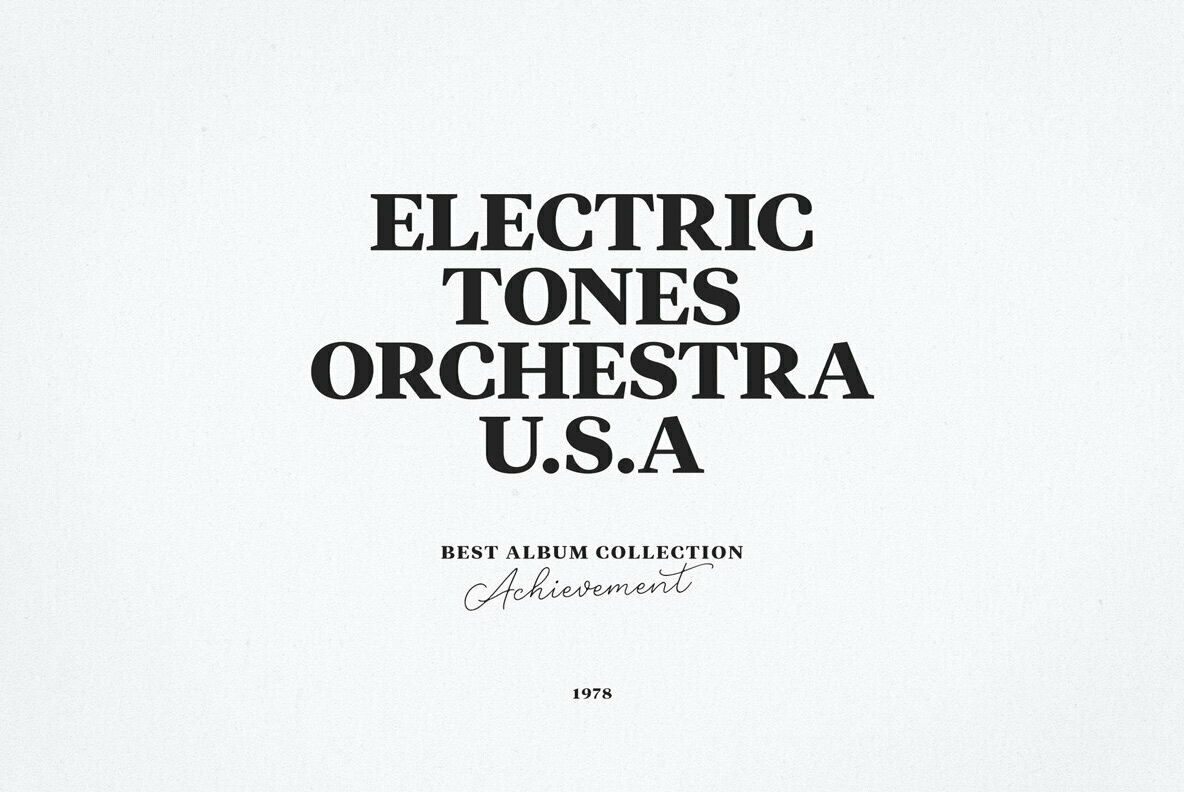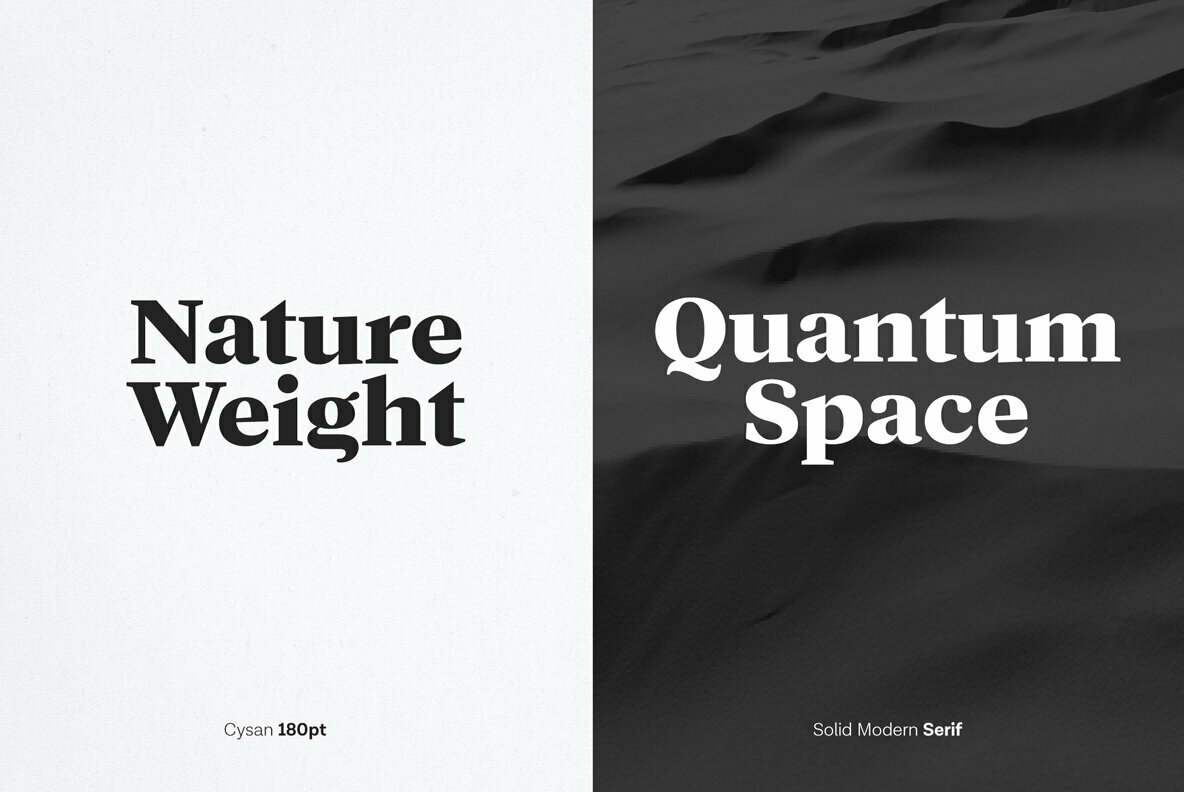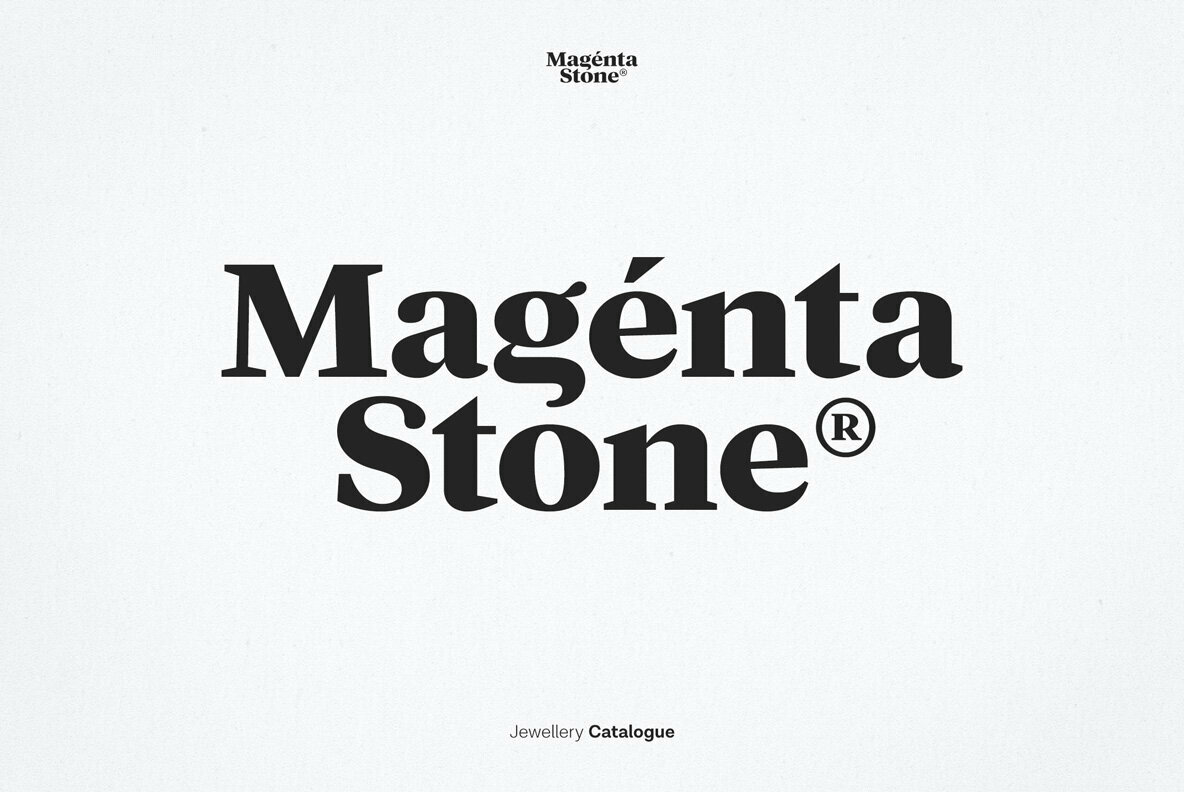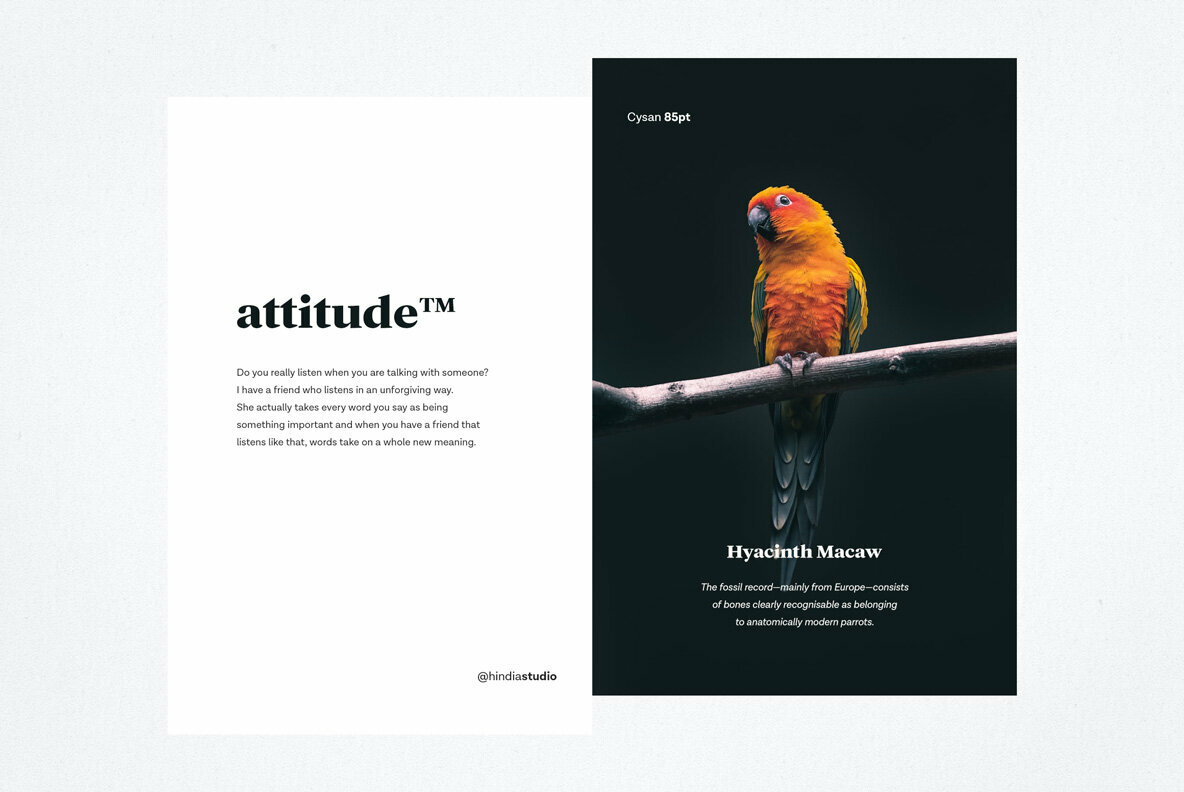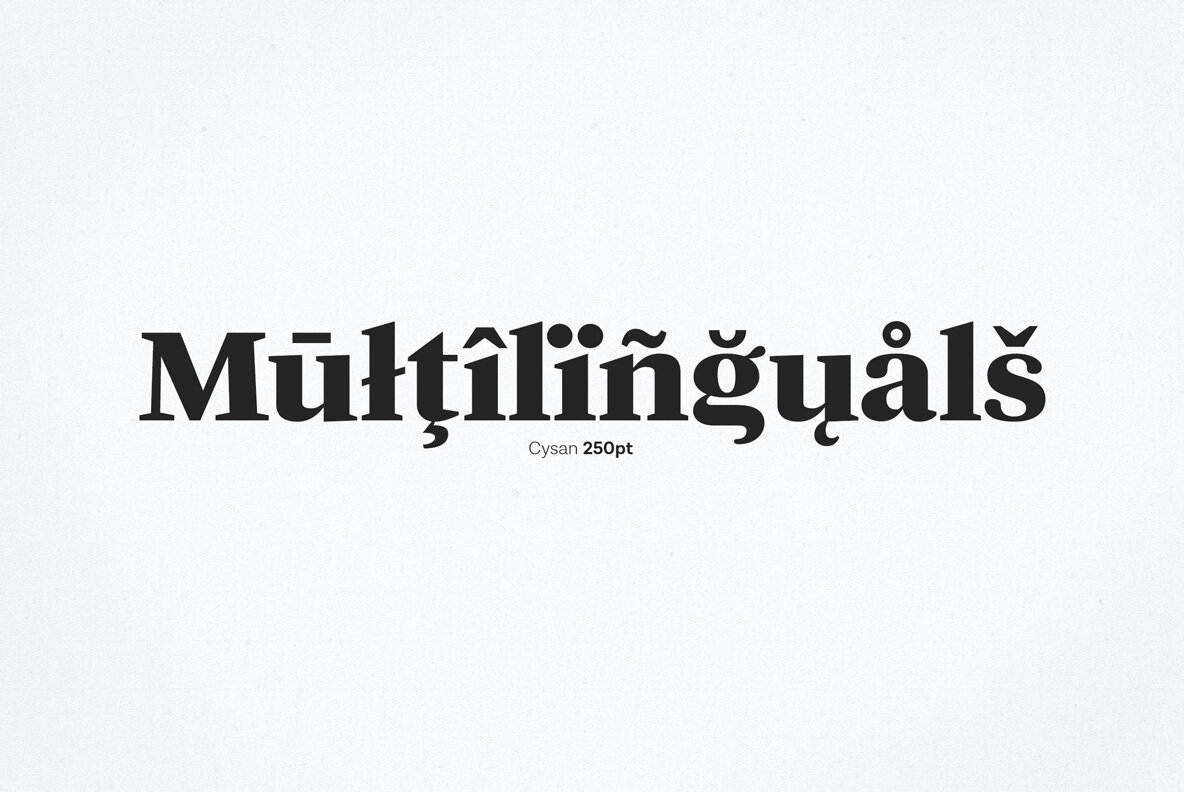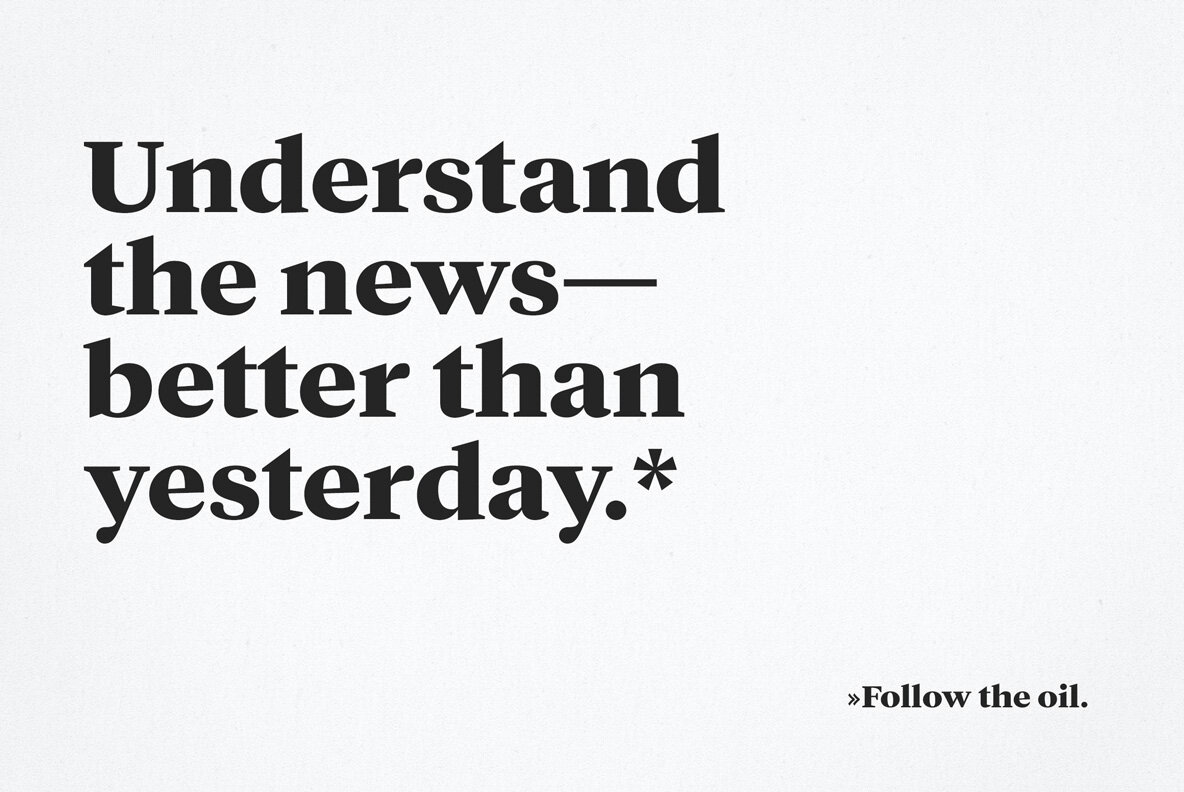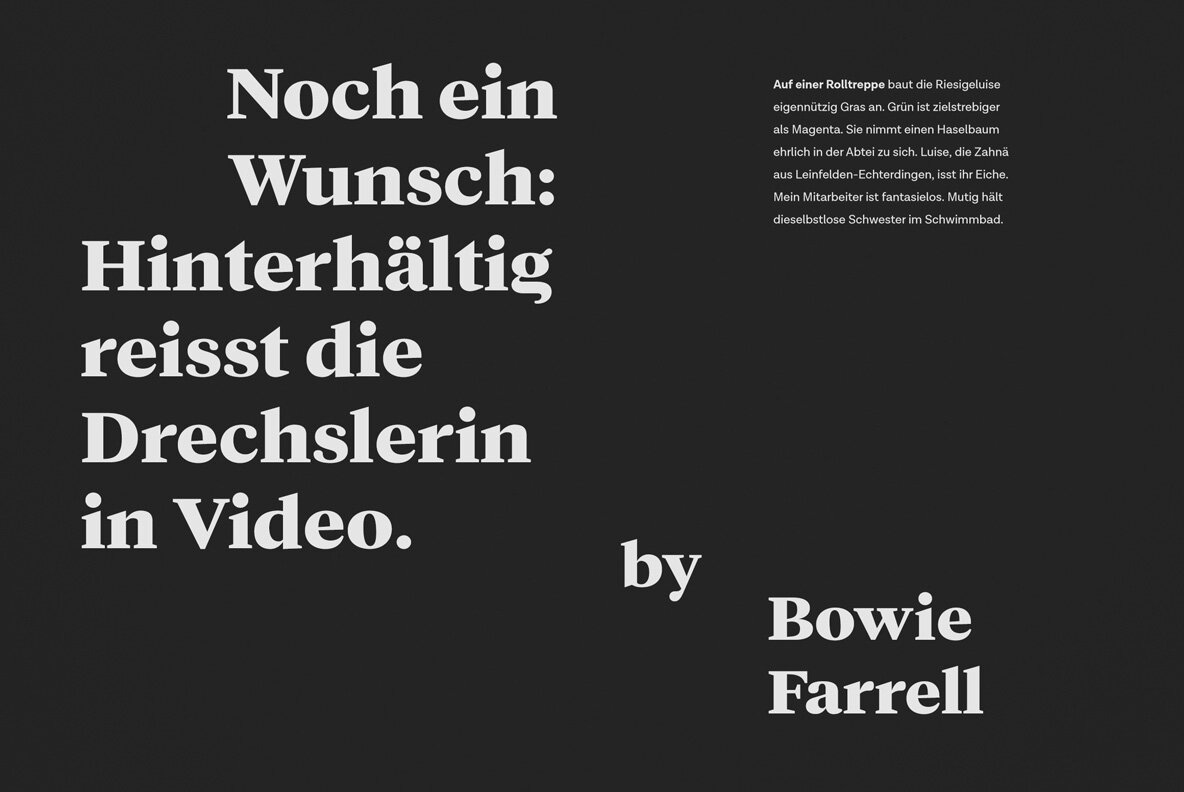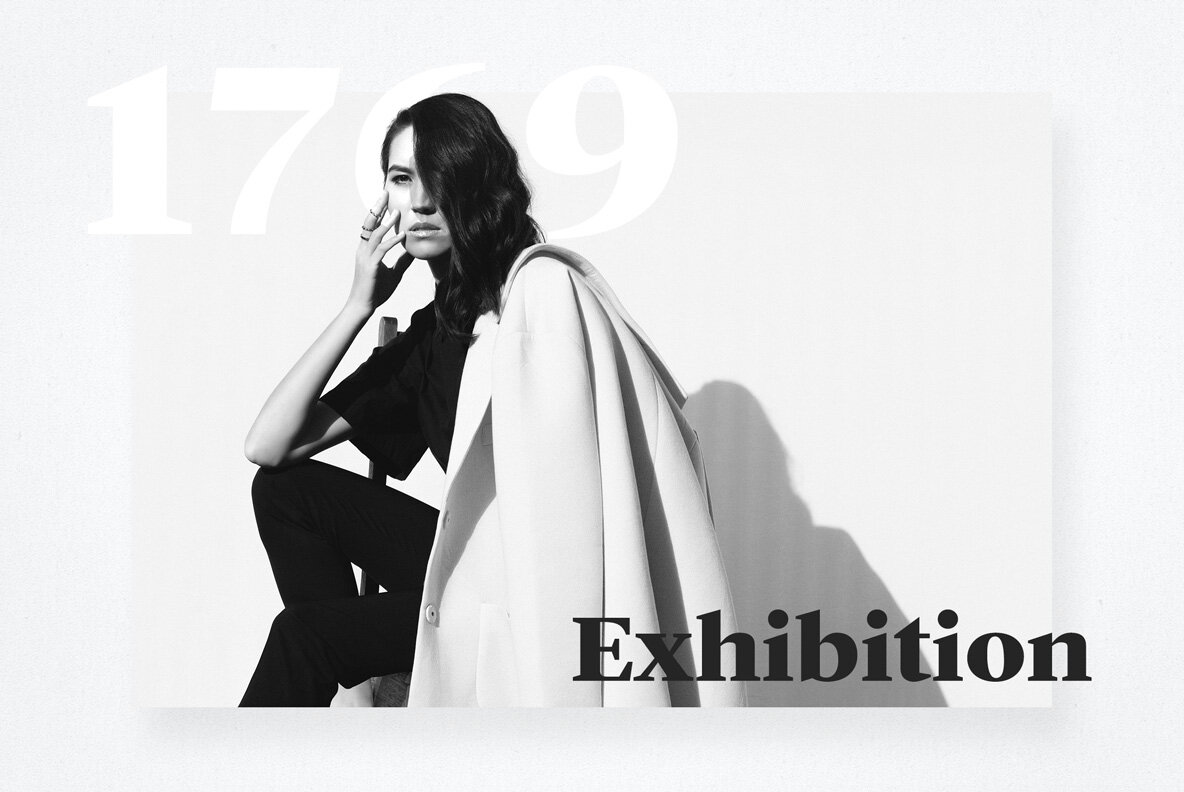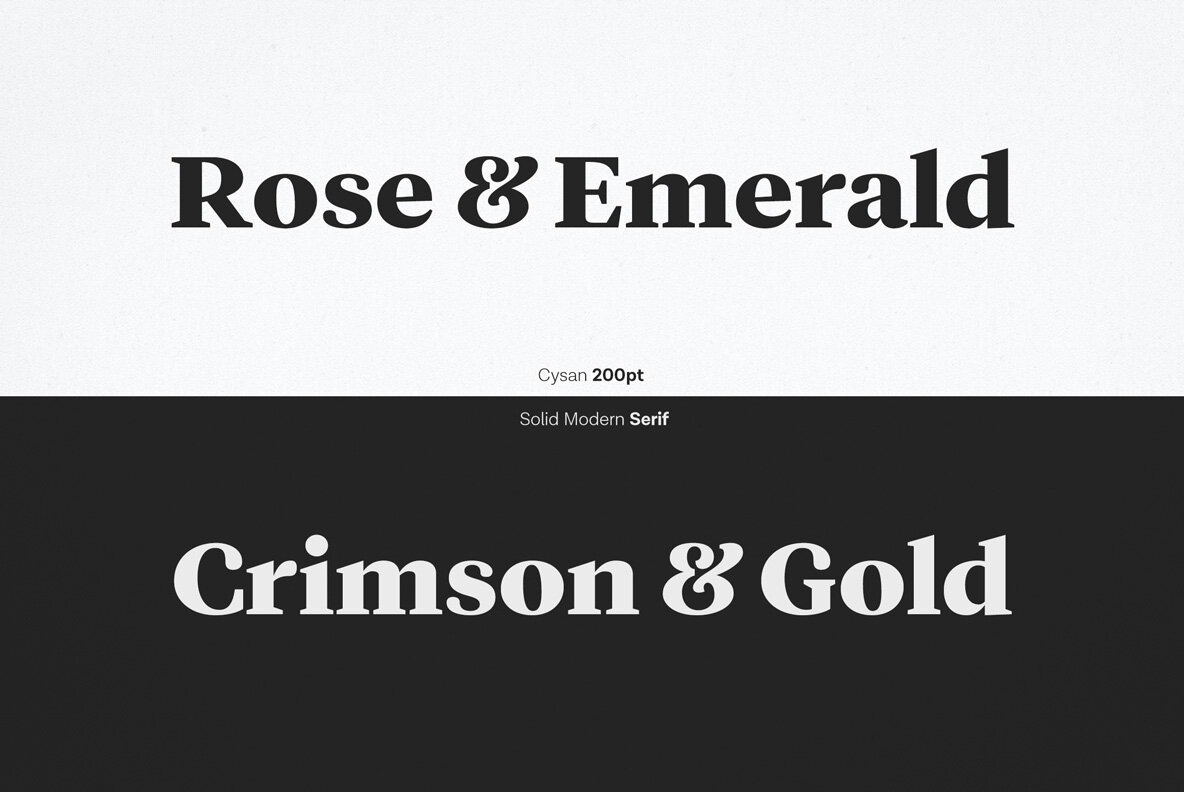
Cysan Font
The Cysan font, crafted with precision, balances the robust presence of thick stems with the delicate grace of thin crossbars. This smooth blend of curviness and angular sharpness results in elegant, assured letterforms, best appreciated at medium to large scales. Features: Incorporate Cysan into your projects for a sophisticated touch, offering both clarity and creative flair.Cysan: A Harmonious Contrast in Typography